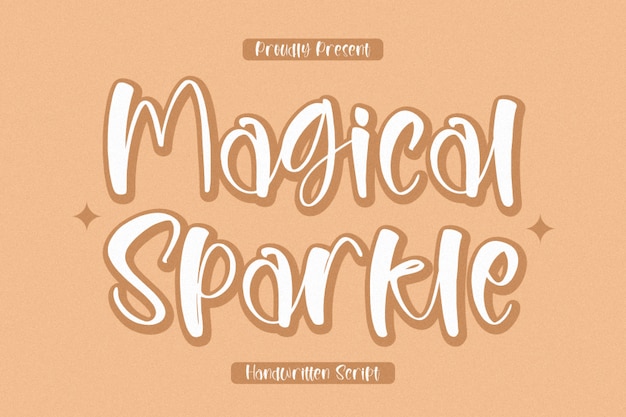
Magical Sparkle
Magical Sparkle Font
"Magical Sparkle" is a charming font that combines the elegance of faux calligraphy with the whimsical touch of handwritten style. Perfect for bullet journals and creative projects, each letter flows with graceful fauxligraphy, adding a touch of magic and personalization. Ideal for invitations, crafts, and designs that celebrate creativity and flair, "Magical Sparkle" brings a delightful, handwritten charm to your work.